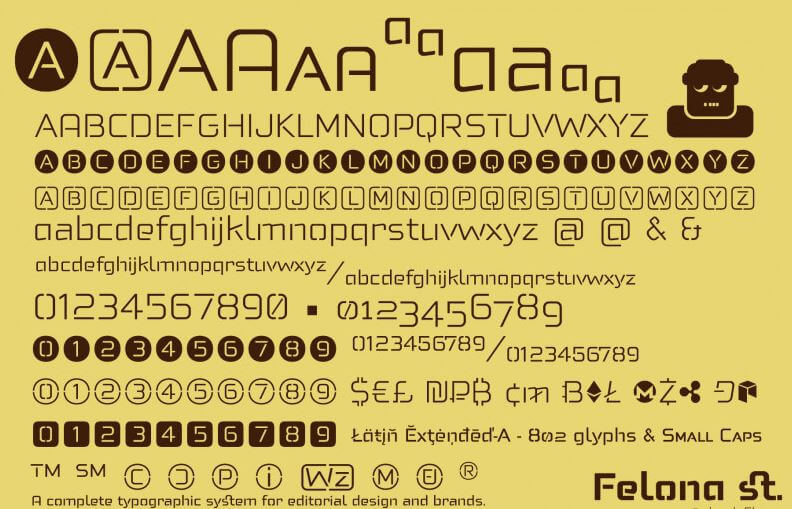
Felona Neo Stencil Fonts
Felona Neo Stencil Fonts is a very nice font in the field of typography. It is a neo stencil font which comes in 6 different styles and used in all different techniques. You can easily use this type of fonts in your works and applications.
As we know the carneval font typography has a large number of numbers such as 806 characters in its writing styles which can be carried out in all styles.